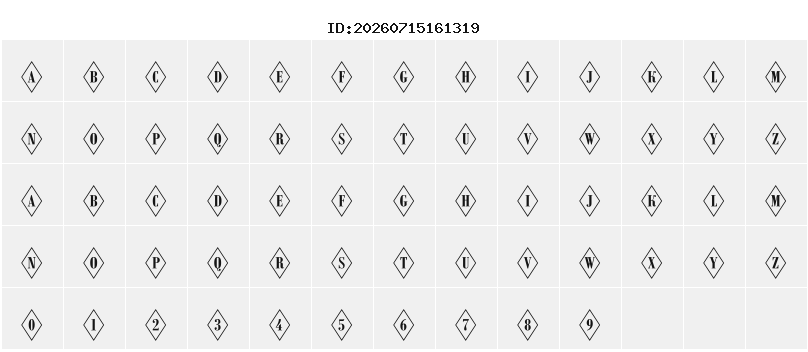
a_RombyOtl Preview
About a_RombyOtl.ttf
a_RombyOtl.ttf is a modern, elegant sans-serif font designed for ultimate readability and visual harmony. Perfect for branding, headlines, web design, and print materials.